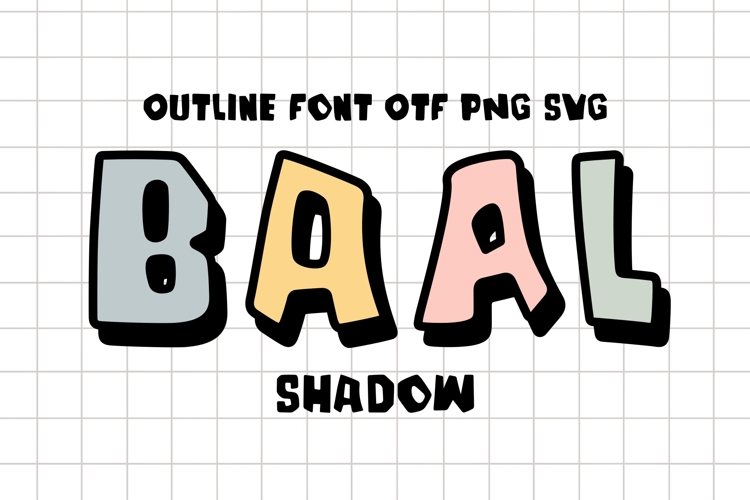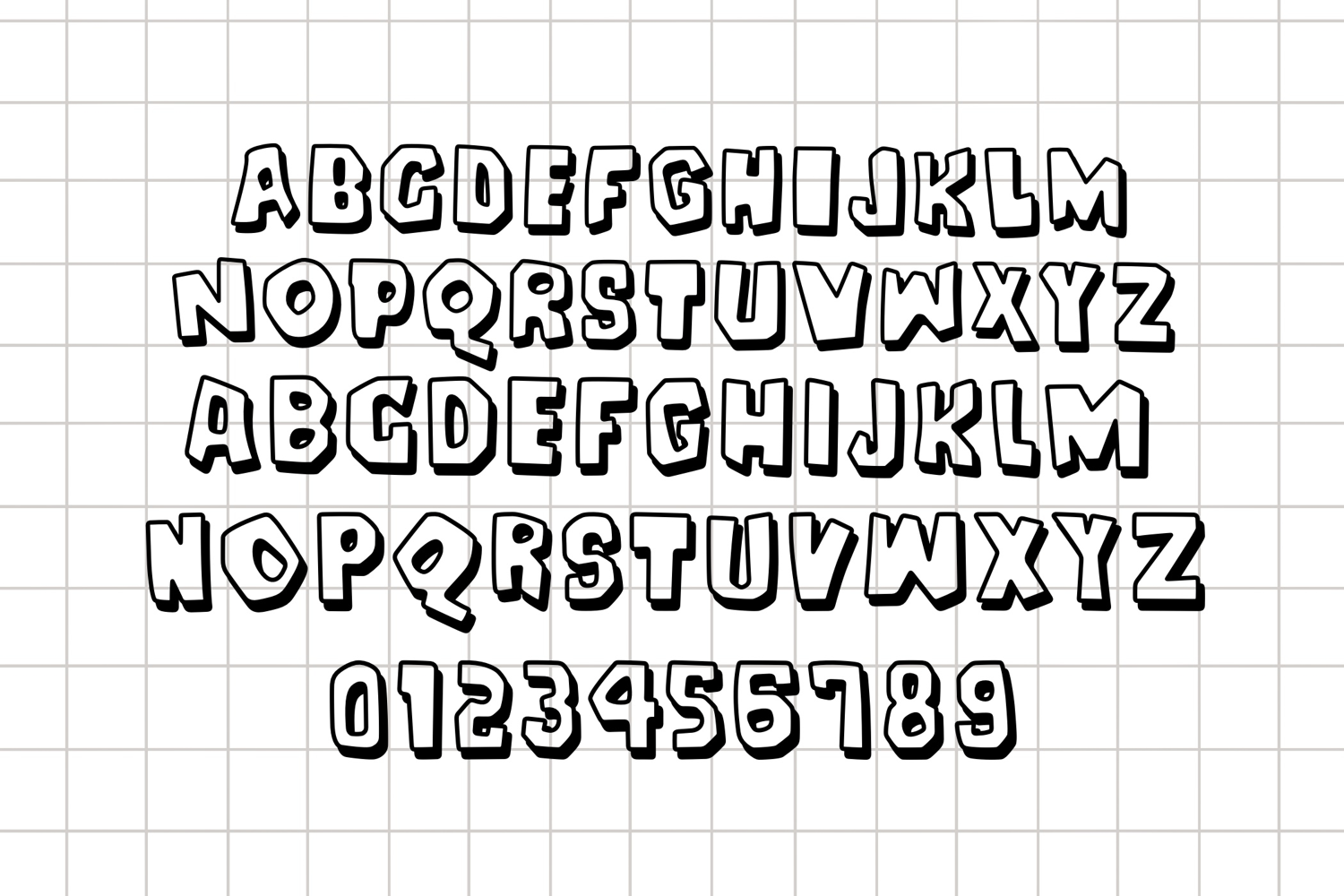
Baal Shadow – A bold and playful outline font with a shadow, perfect for eye-catching titles and creative projects. Its chunky, hand-drawn style makes it ideal for posters, banners, stickers, invitations, t-shirt designs, and digital crafts.